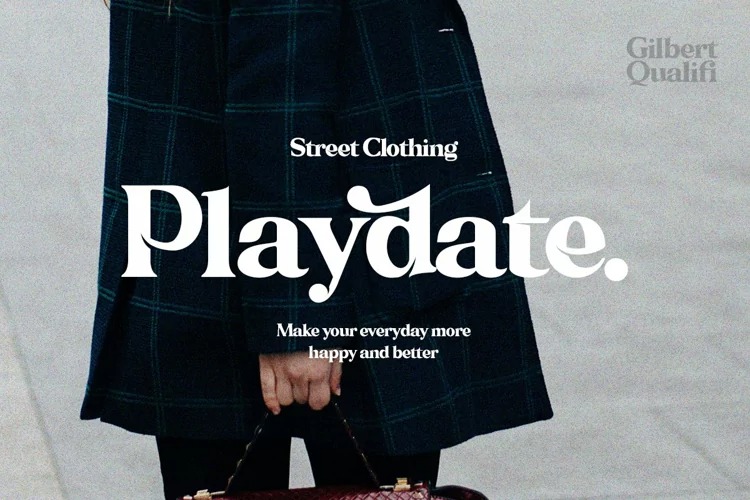
Gilbert Qualifi Font
Gilbert Qualifi Serif Font
It’s a modern clean serif typeface created by embuntype with sharp and exquisite characteristic. Whether you have a client that needs a new chic logo, or you’re designing your social media posts. Maybe you’re preparing your wedding mood board, stationery, invitations, Gilbert Qualifi font is just perfect for all of that and more.